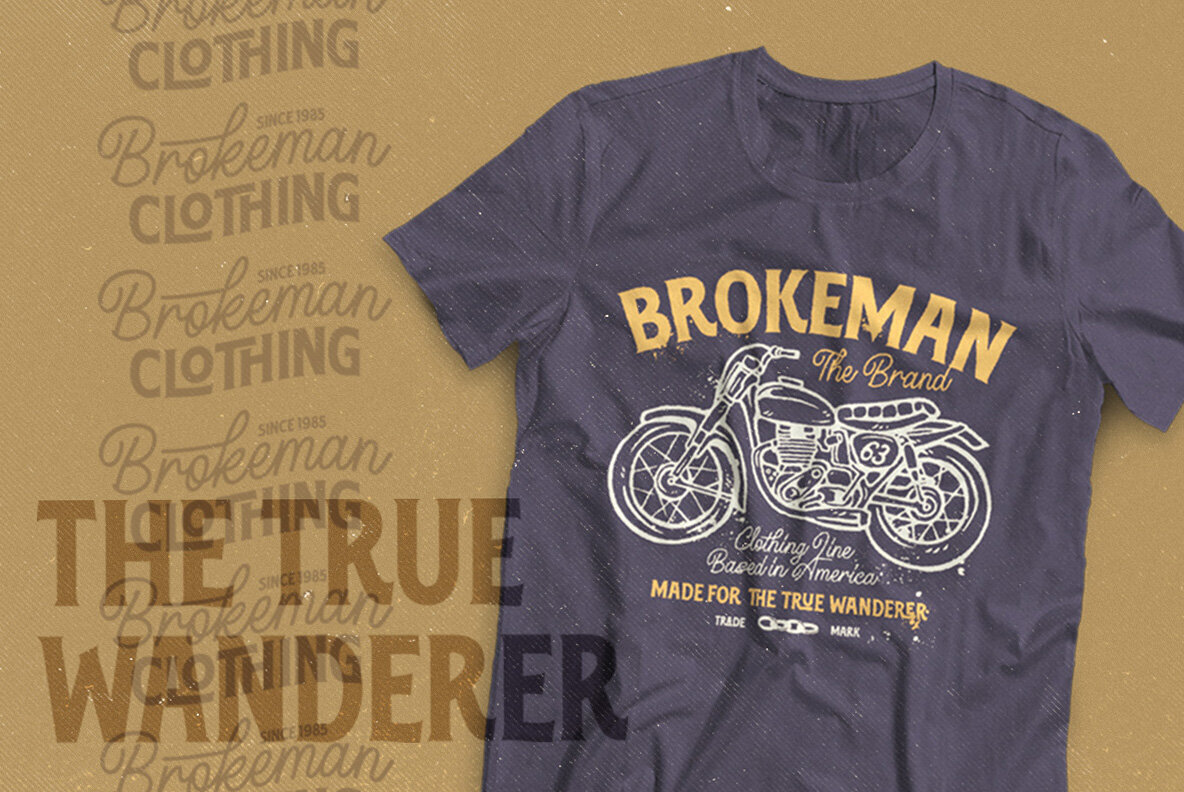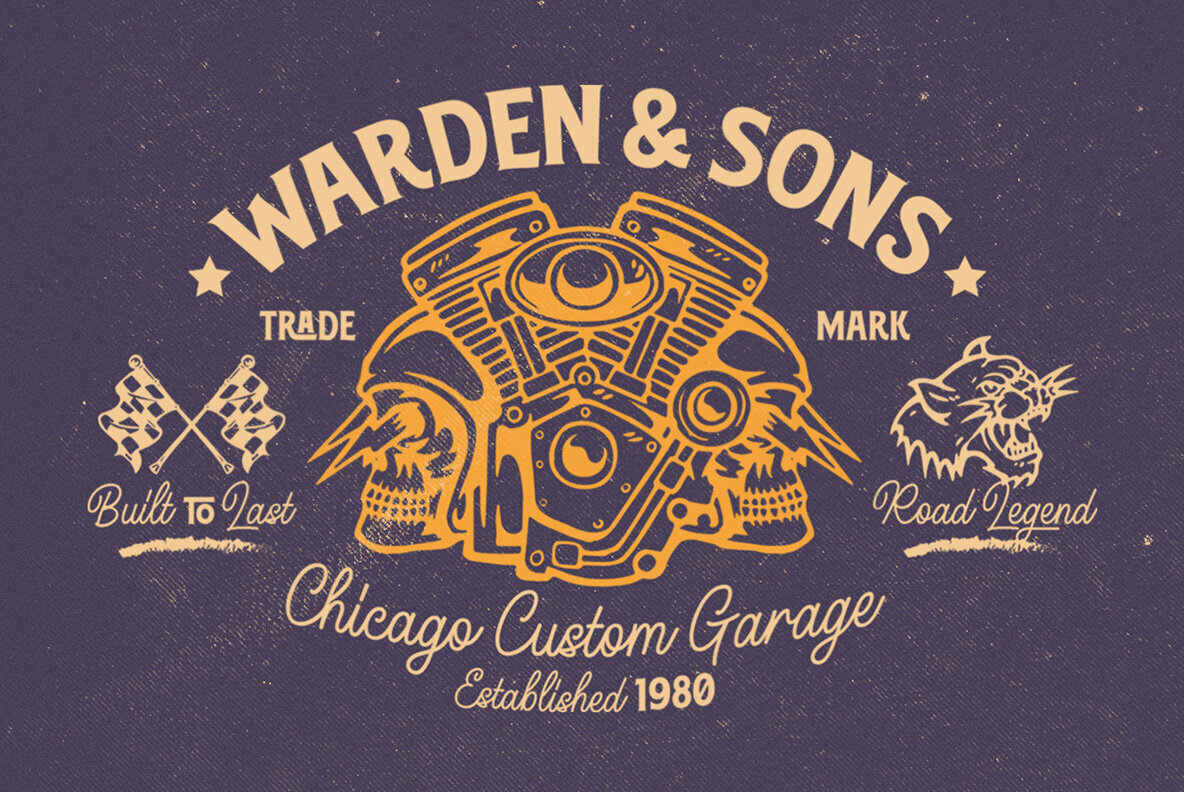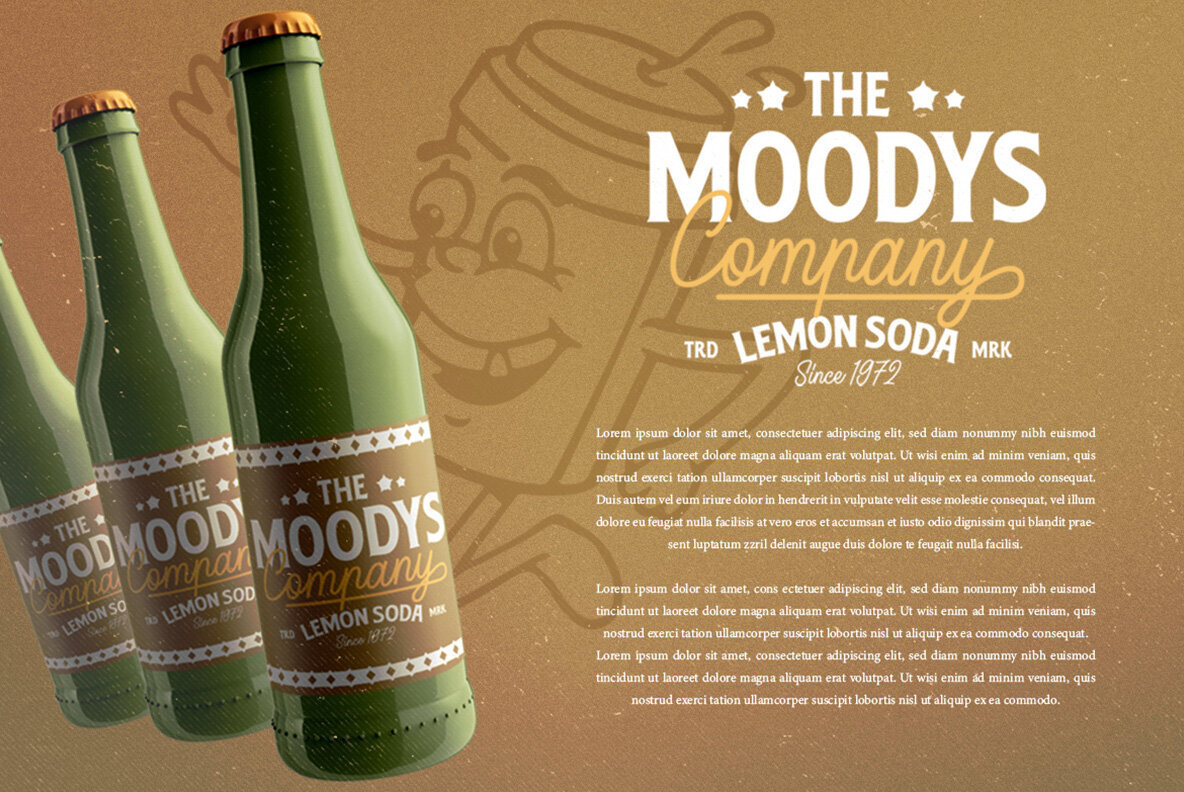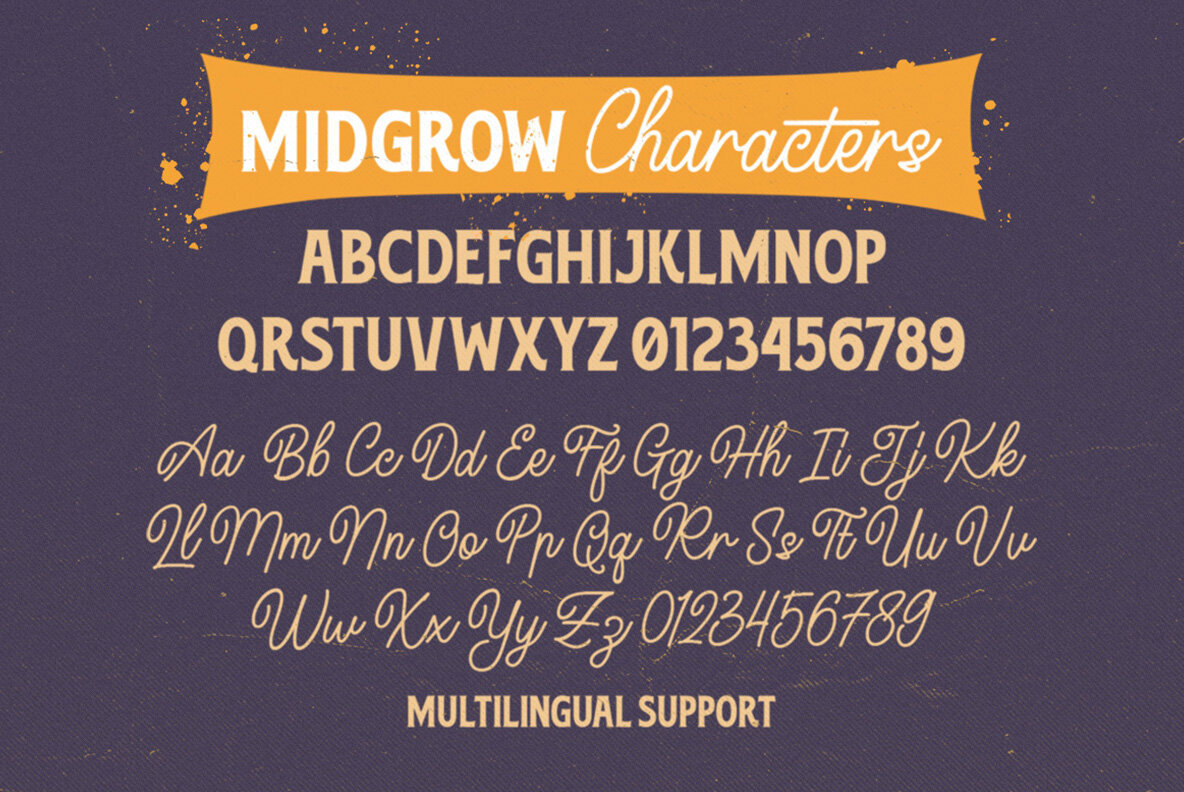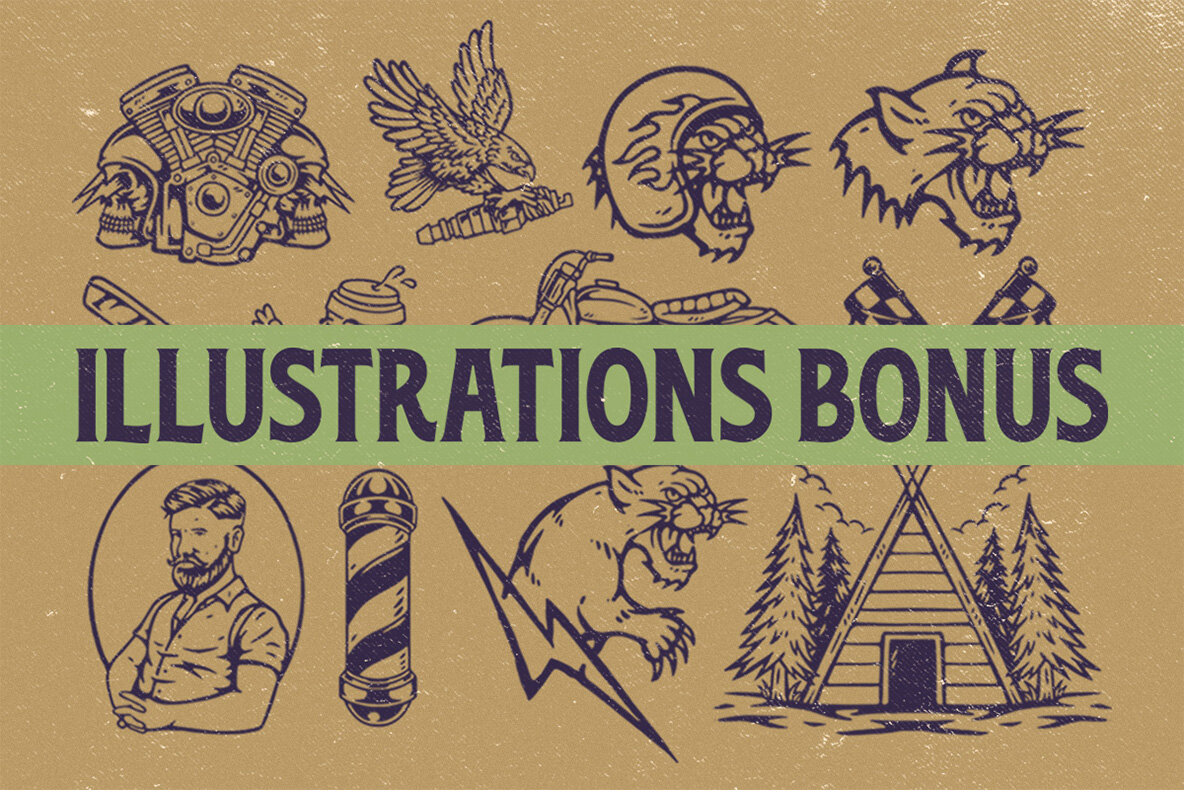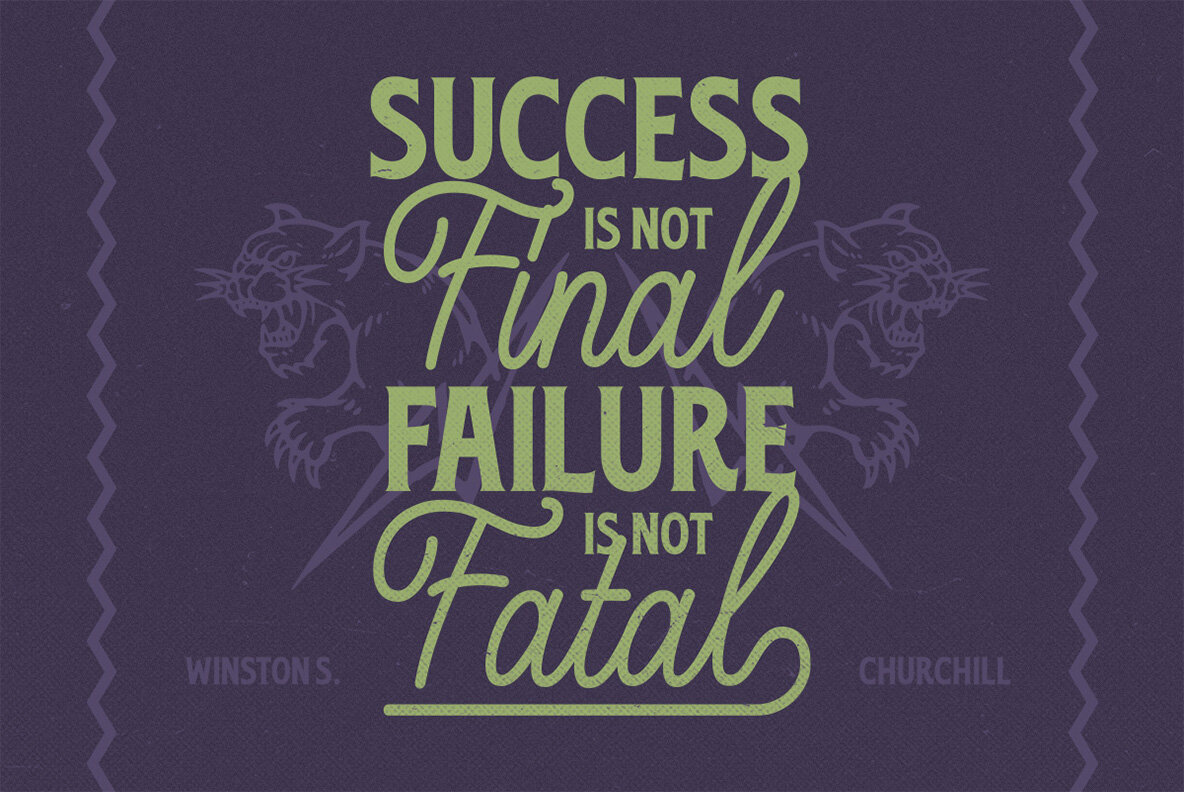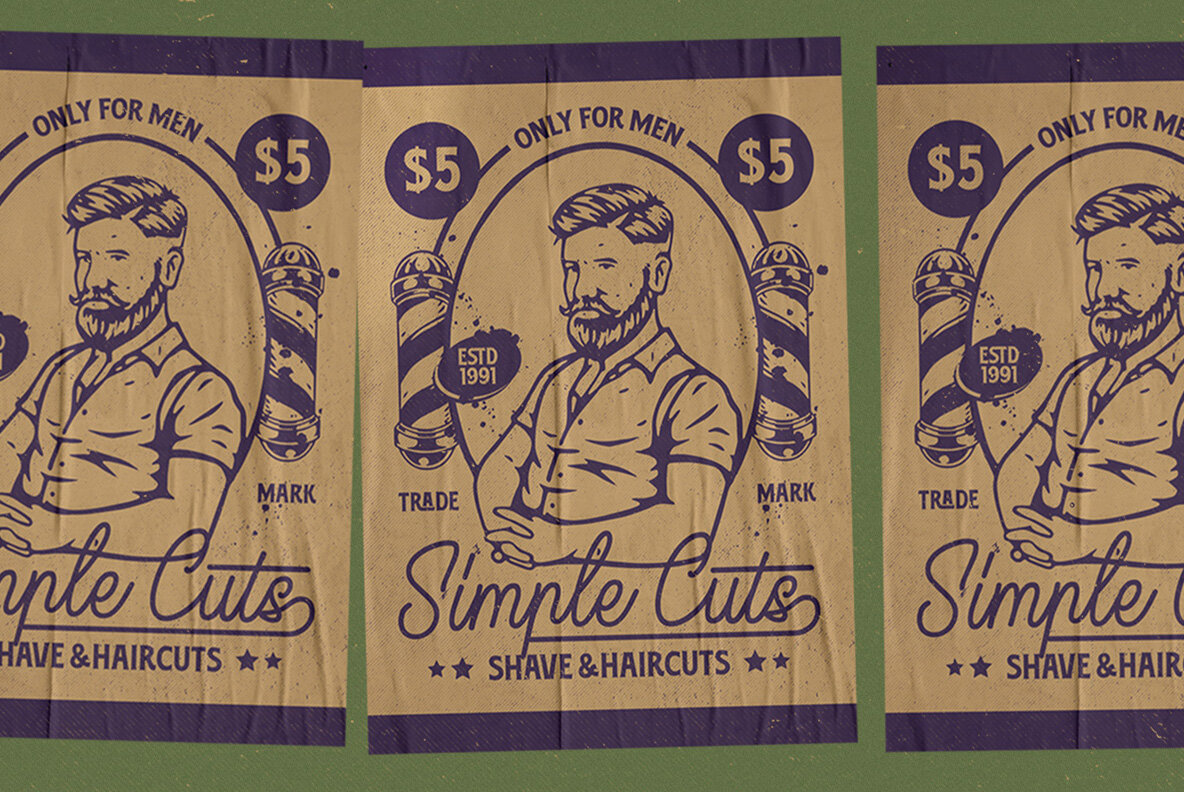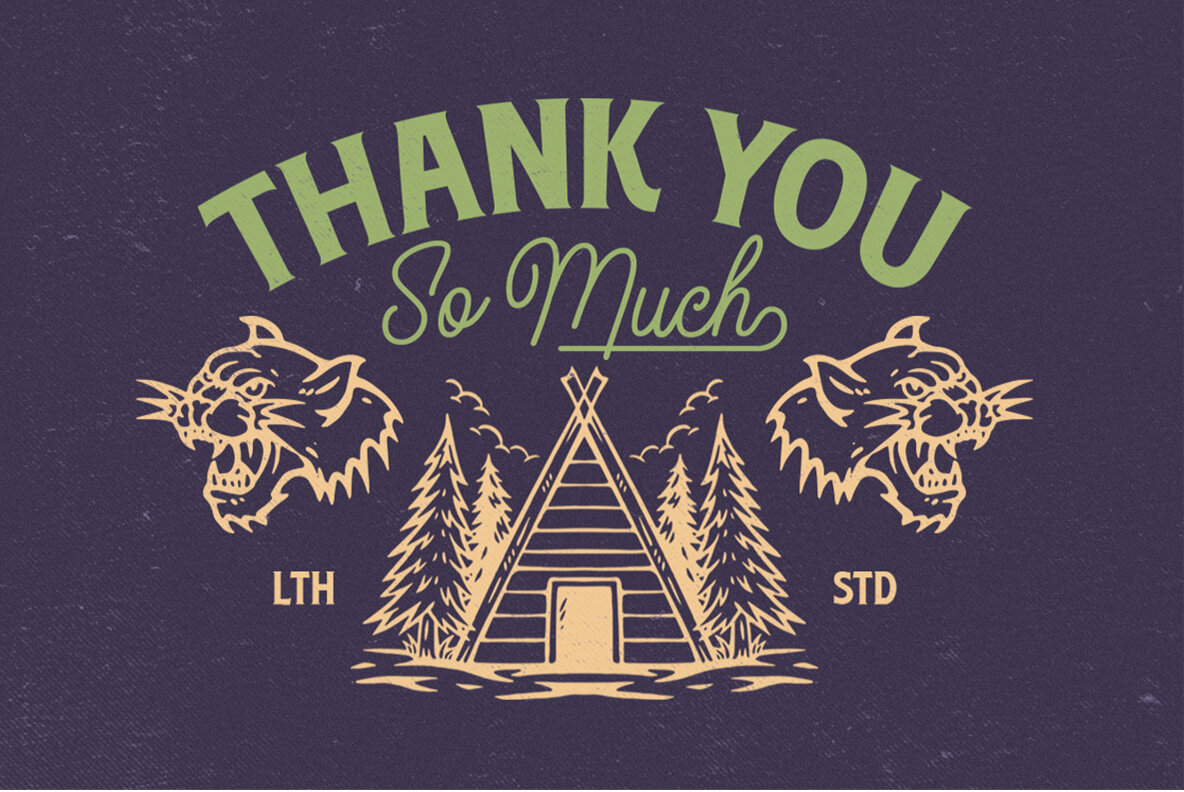
Midgrow Font Duo
Midgrow Font Duo and Bonus Set (2 fonts)
The Midgrow Font Duo by Letterhend Studio blends a clean monoline script with a classic serif. This versatile duo brings a touch of vintage charm, ideal for projects seeking an adventurous theme. Perfectly tailored for headlines, displays, logotypes, and signatures, this font combination captures attention and stands out in a crowd. Whether you're designing logos, creating invitations, or crafting formal publications, Midgrow adds sophistication and flair. Its extensive application spans across various domains, from elegant magazines and books to chic stationery and innovative packaging.Midgrow Font Duo: Monoline Script Meets Timeless Serif